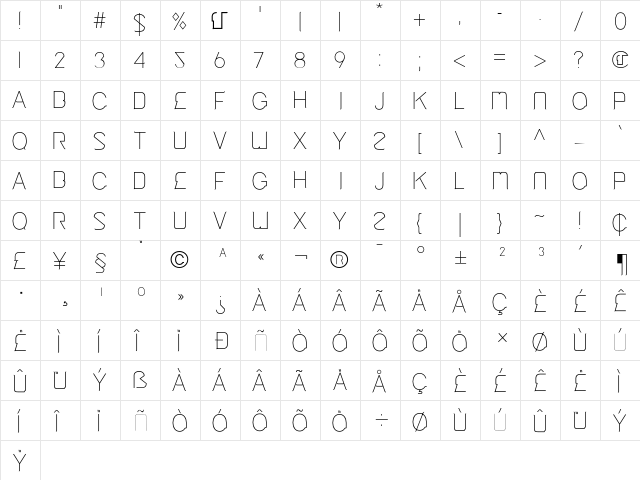
Cinga Light
| Foundry | Daniel Angermann |
| Designer | Daniel Angermann |
Design Context for Cinga Typeface
Cinga offers clean, dependable letterforms without strong stylistic allegiance, making it a practical choice for designers who need flexibility. The delicate stroke weight brings airiness and refinement to layouts.